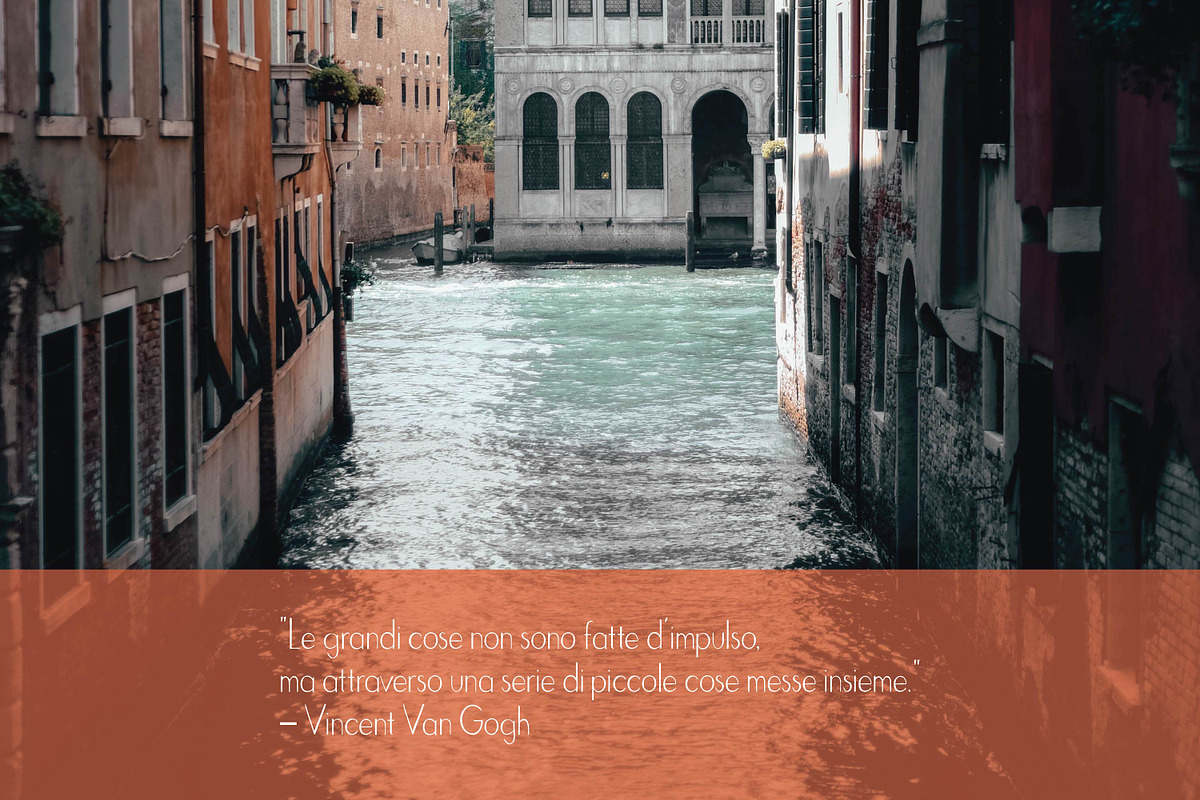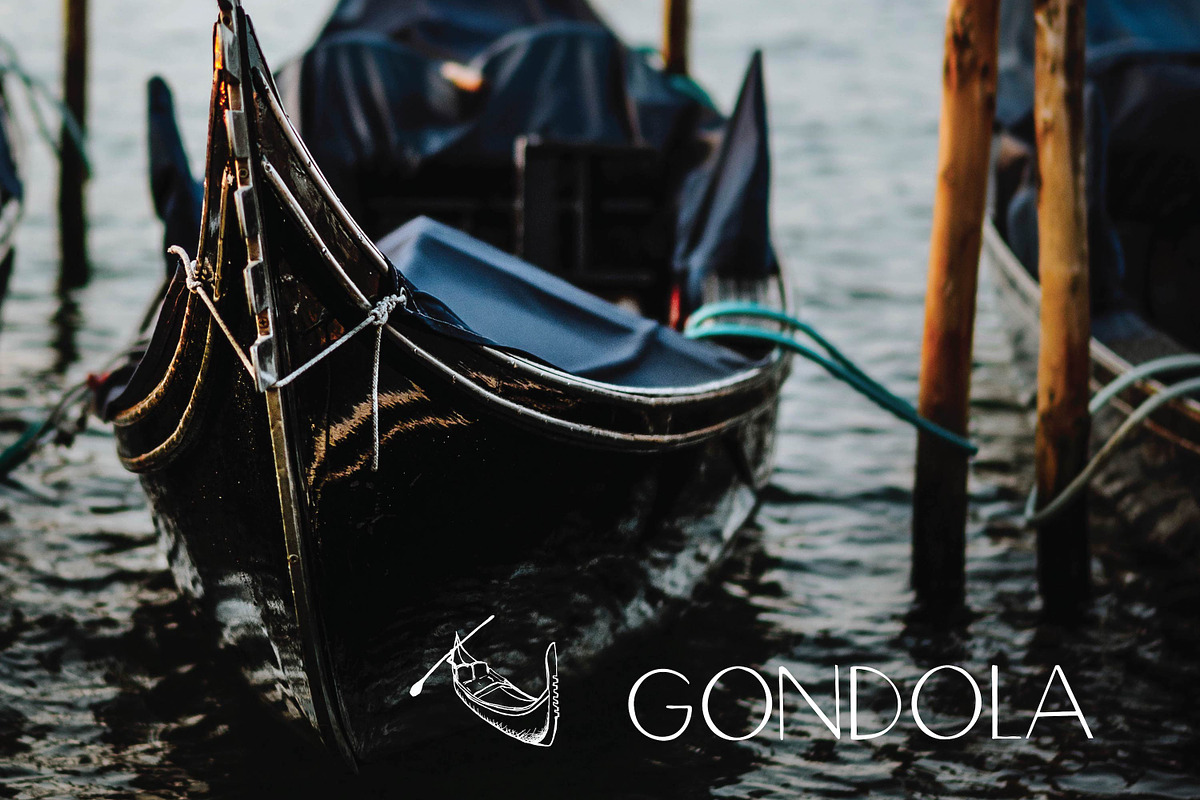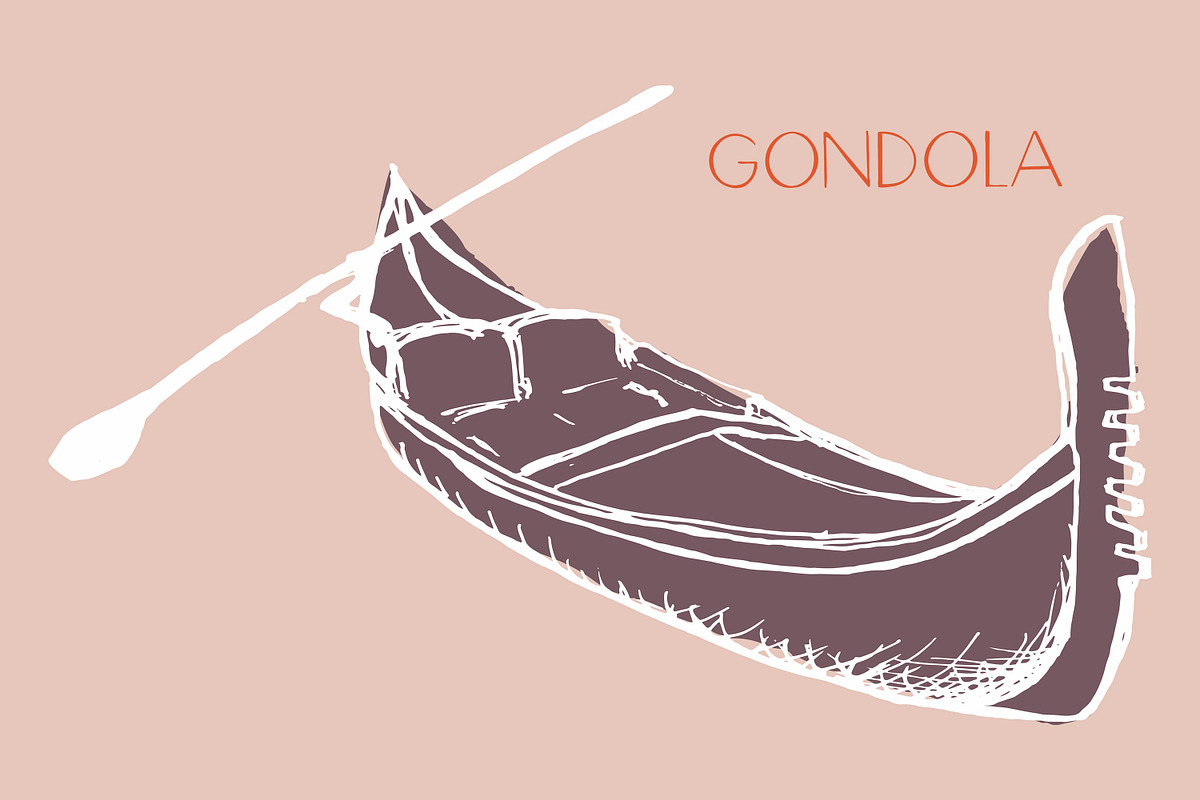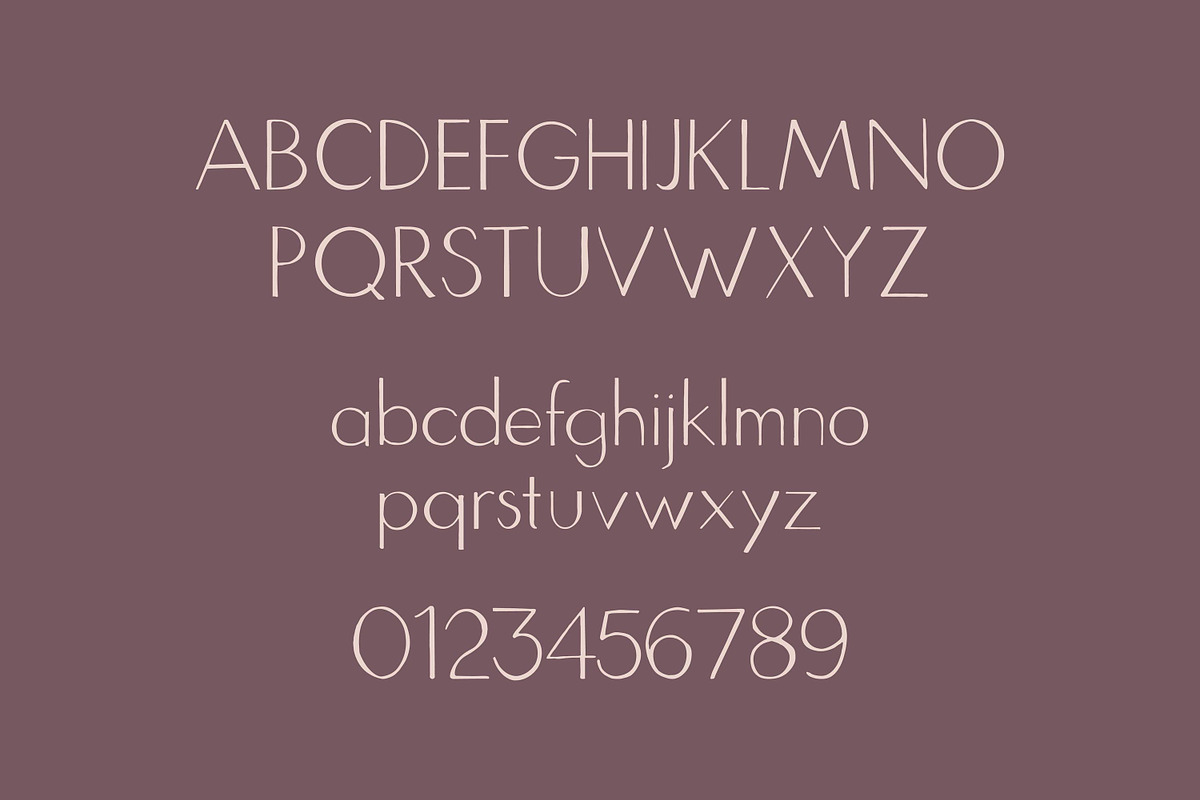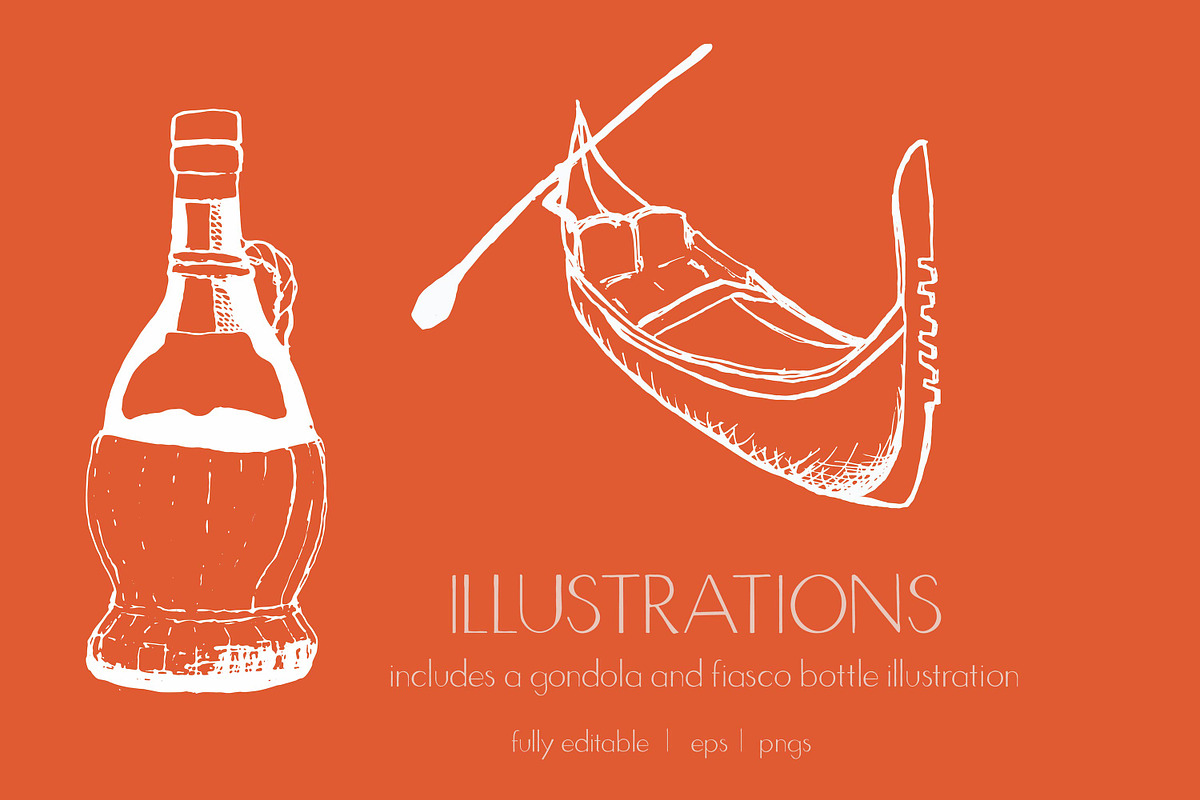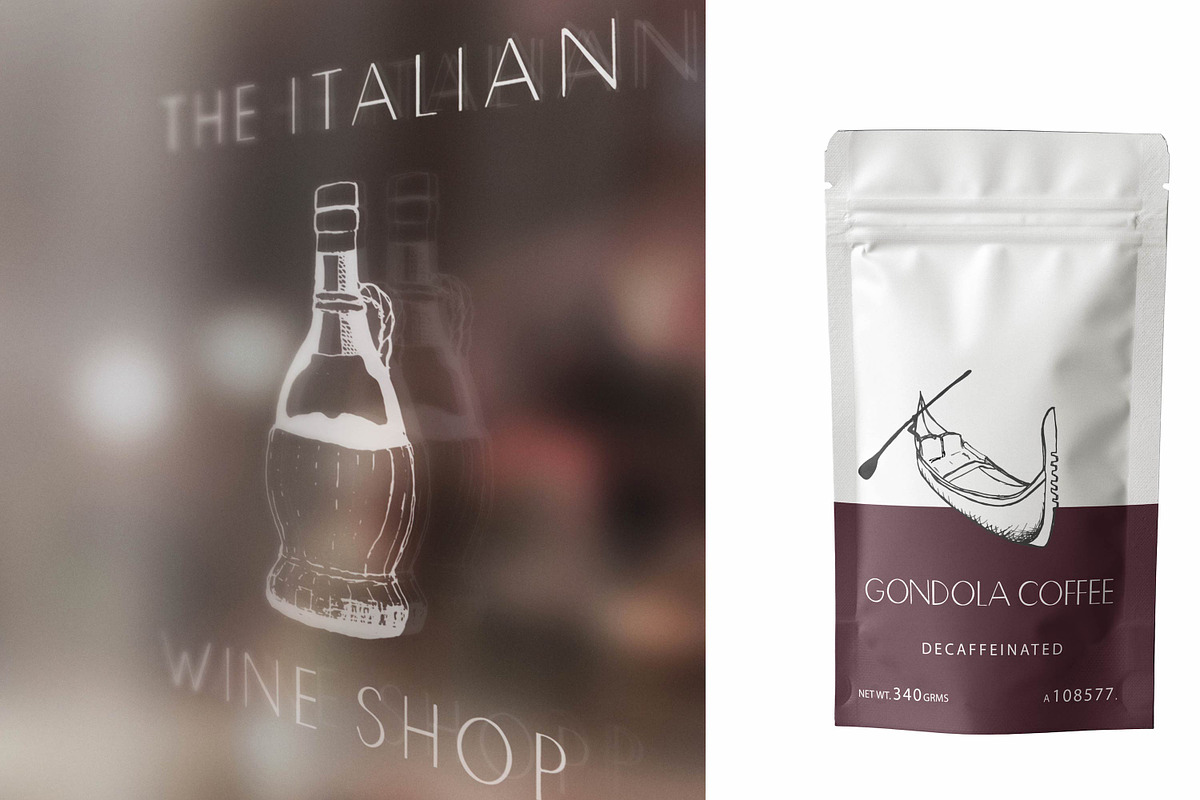
Venice | Hand Drawn Font
Hand-Drawn minimalist font inspired by geometry and The Greek Renaissance. Use font to create everything from elegant LOGOs to beautiful stationery.
Venice | Hand Drawn Font by The Collective Studio fits naturally into Branding, posters, packaging, typography.